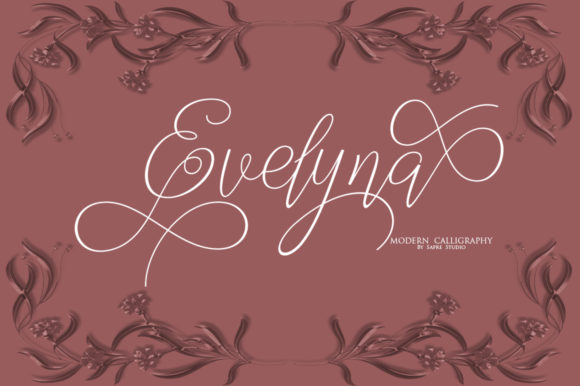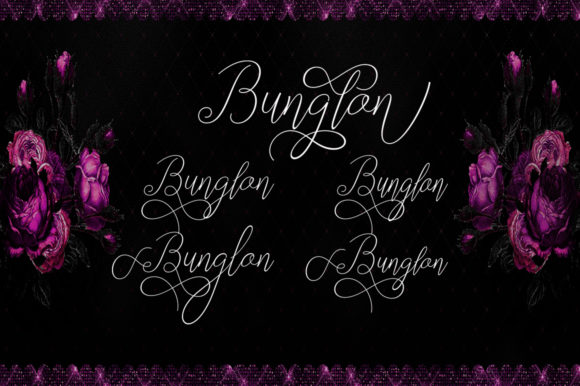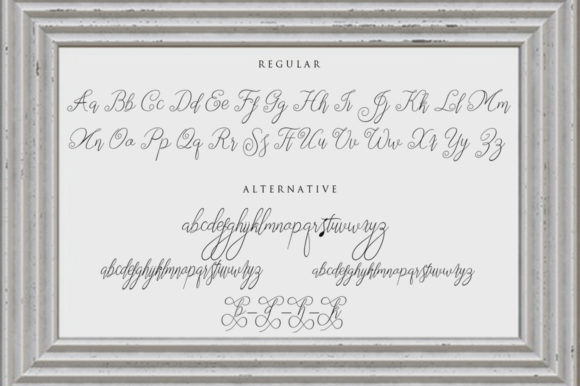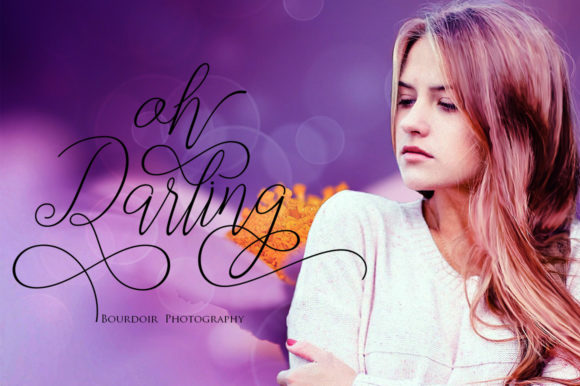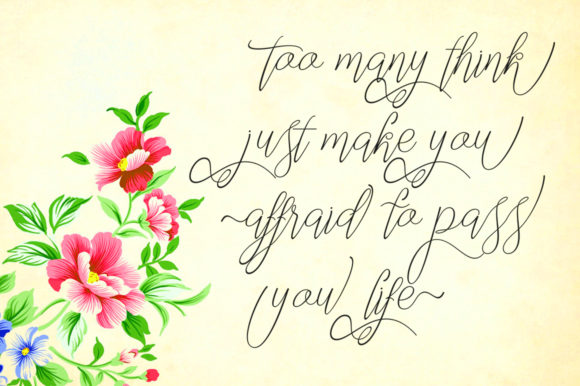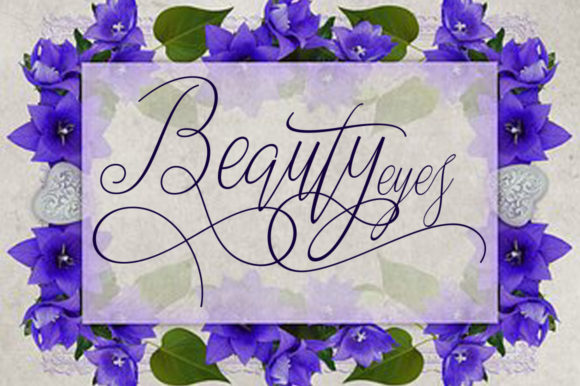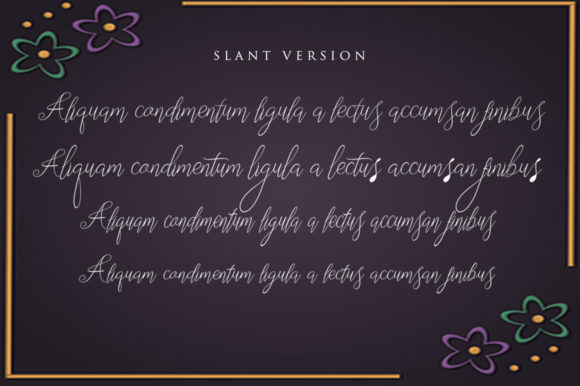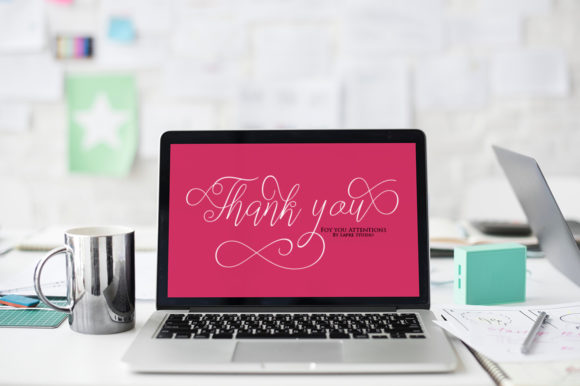
Segitha Script Font
About Segitha Script Font
The Segitha is an amazing script font with fine and elegant lines. It’s easy to use and is perfect for adding a classic touch to your upscale and chic designs.